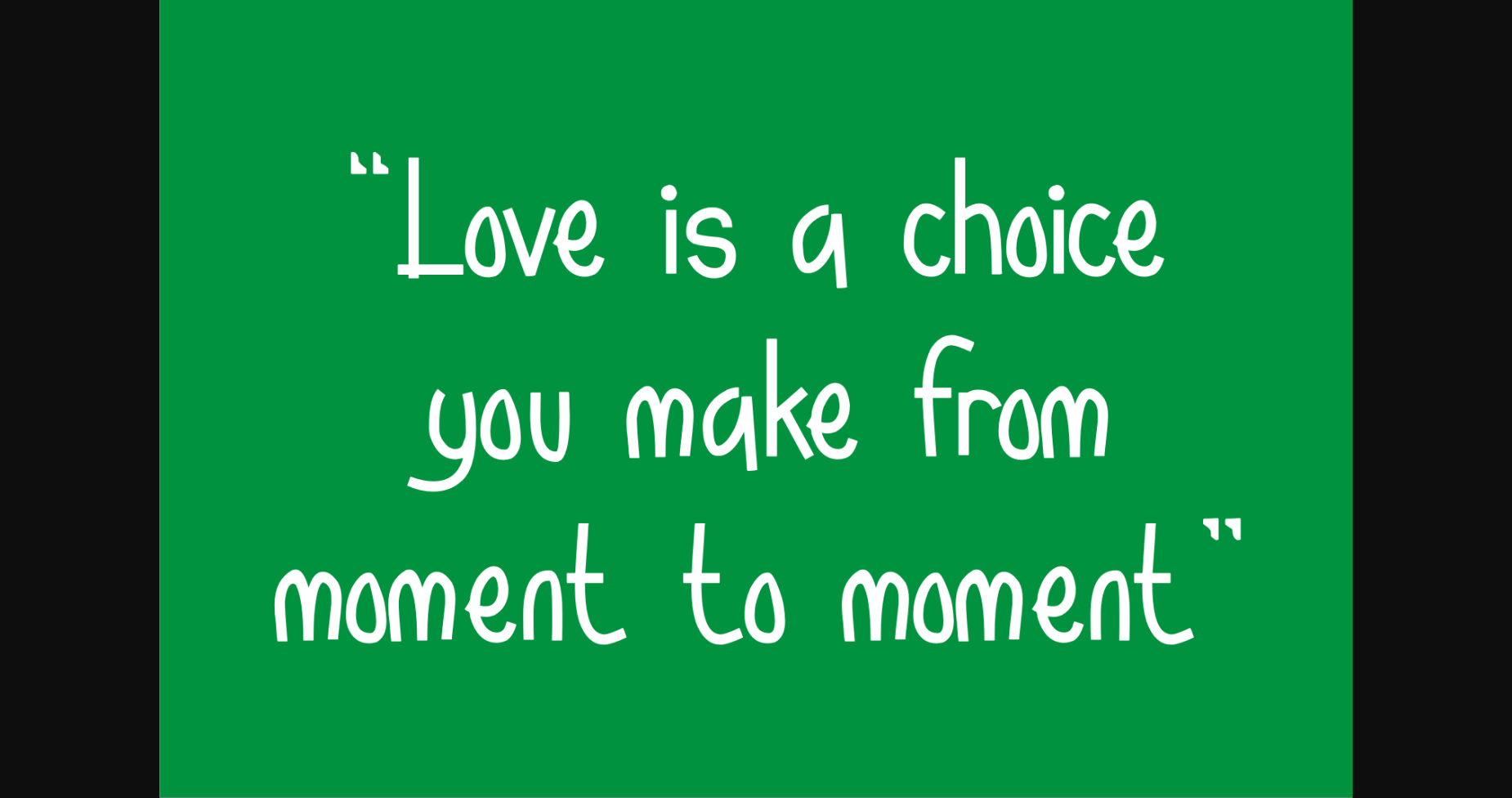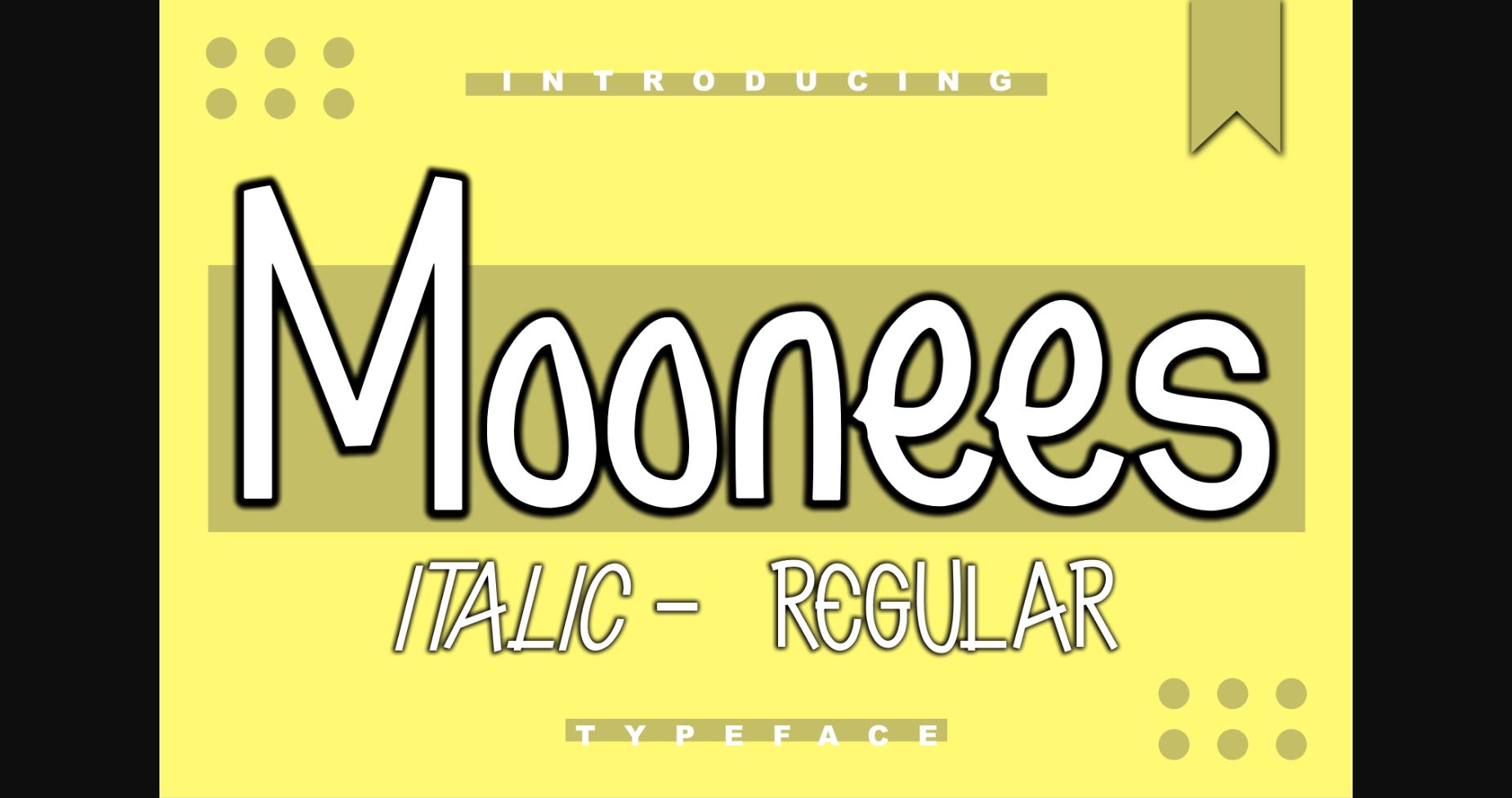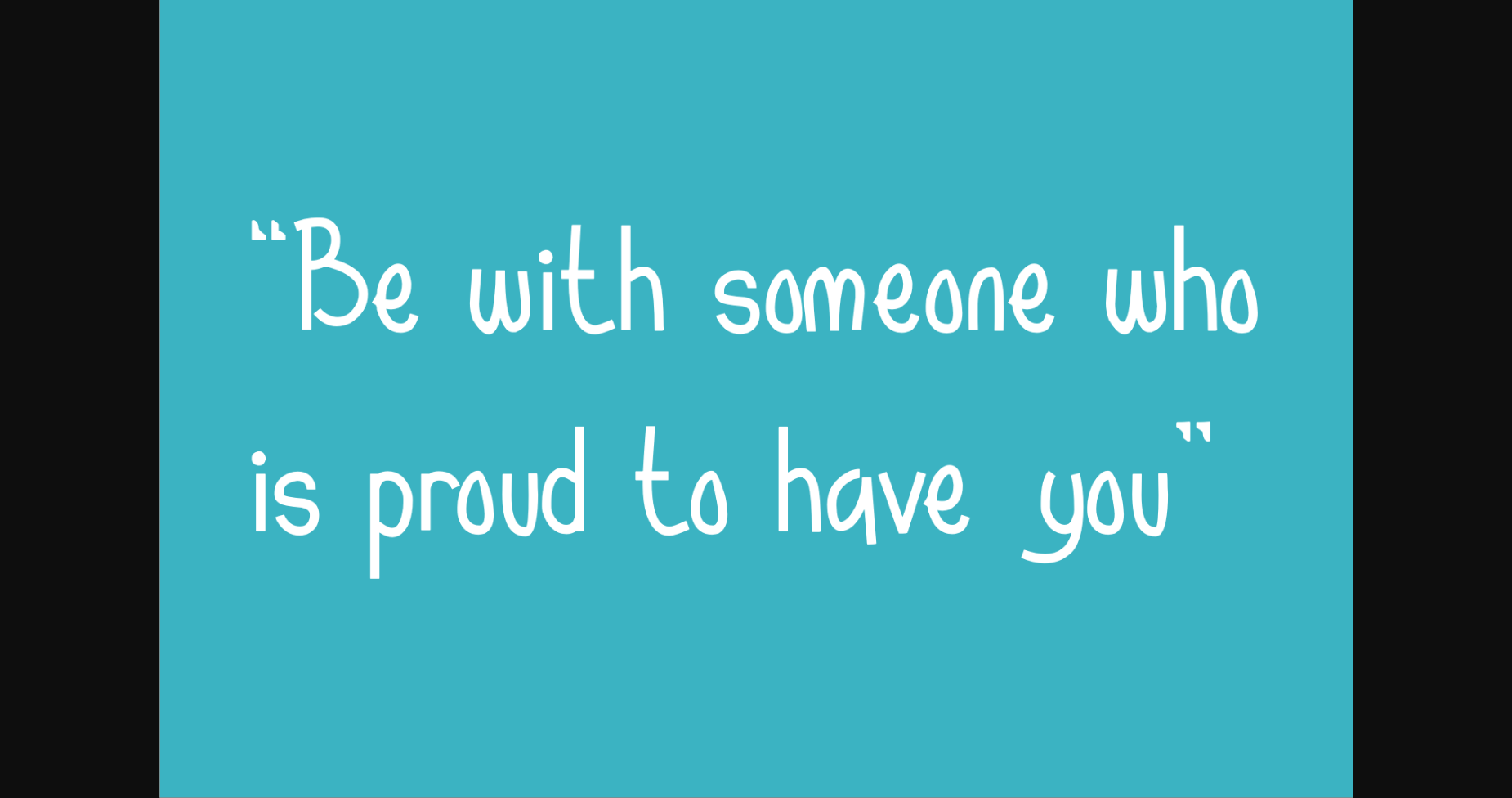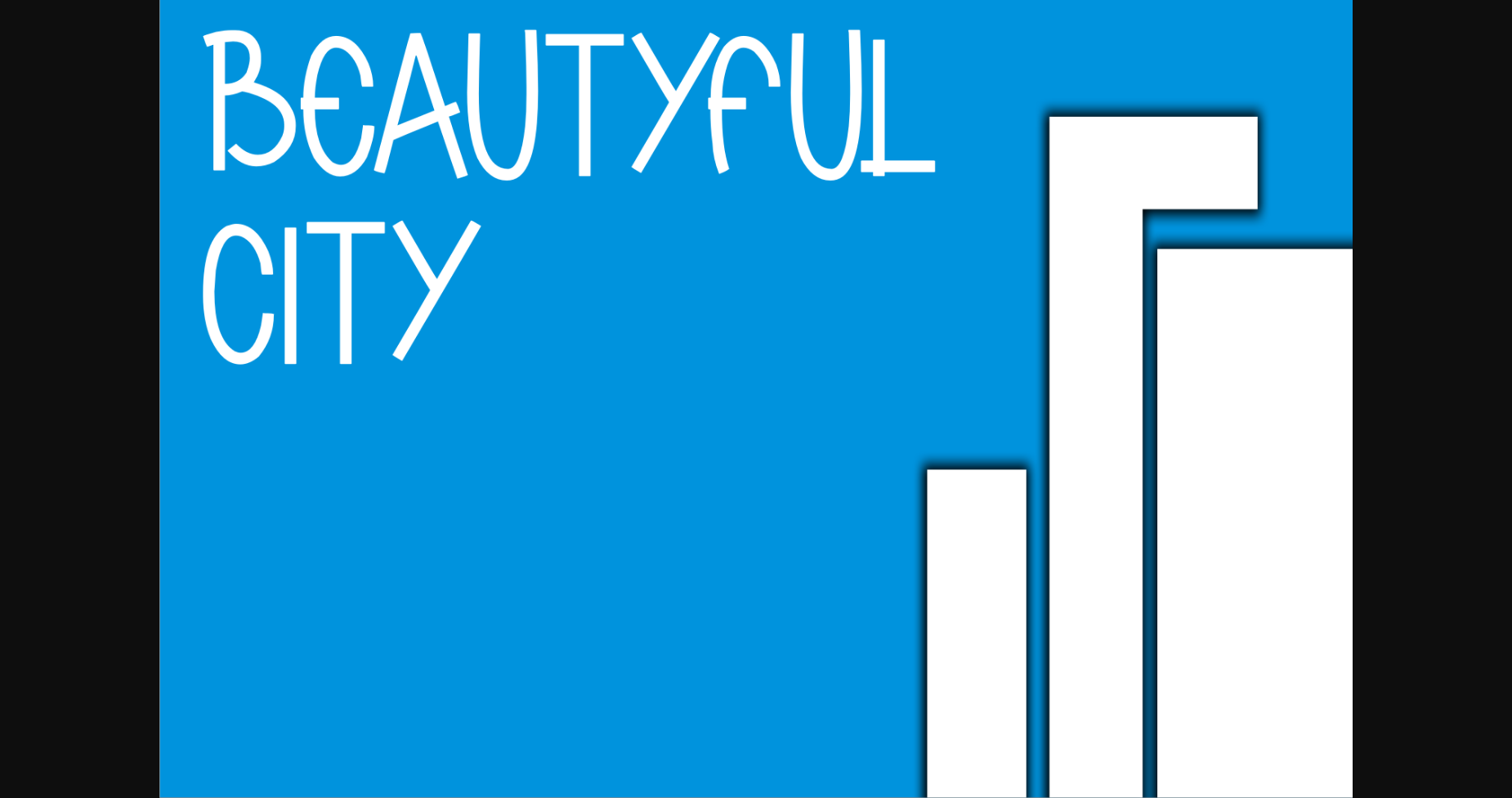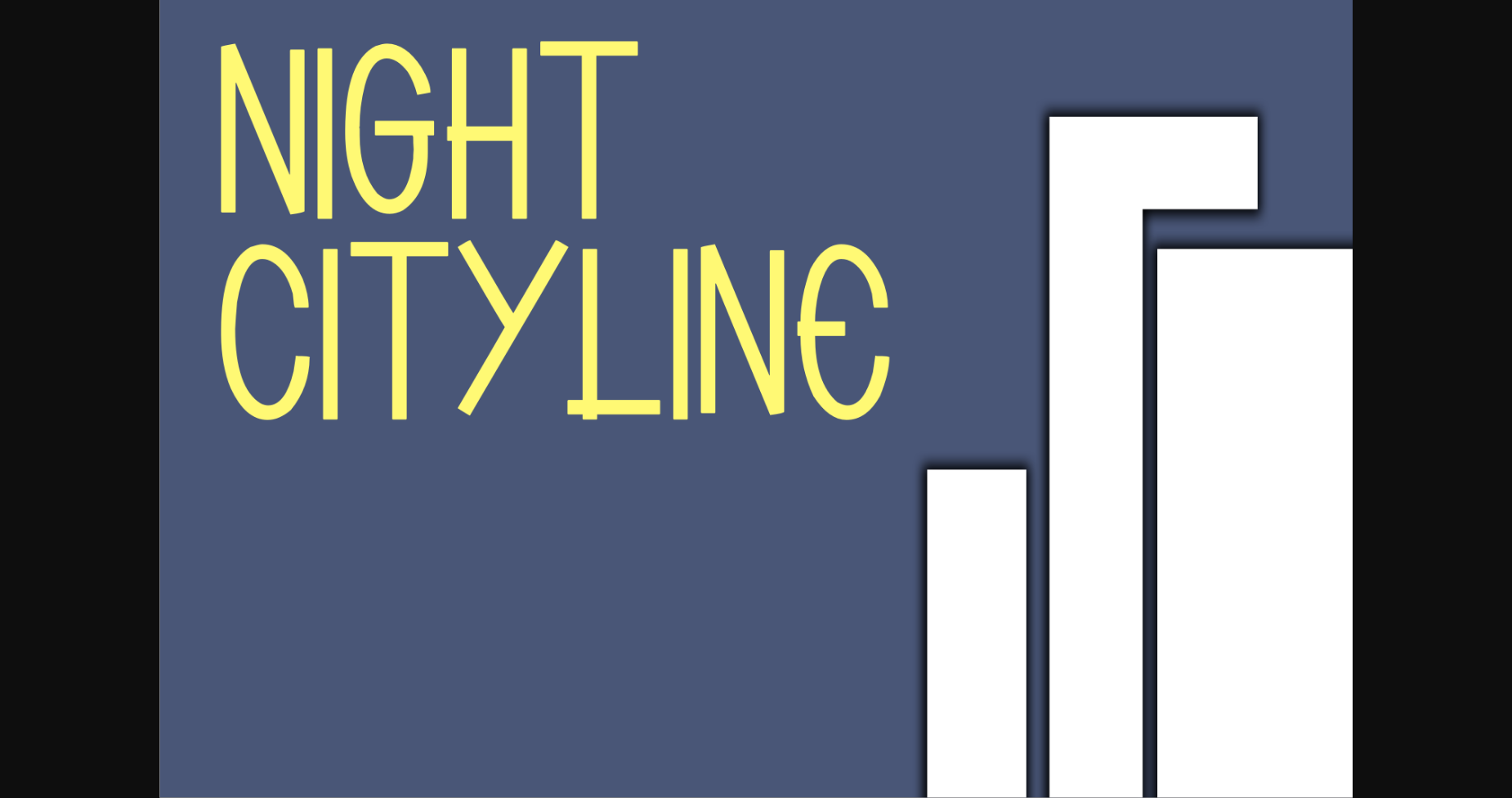
About Moonees Font
Moonees is a cool and trendy-looking sans serif font. This font is great for logos, badges, clothing, posters, and other projects that need to stand out from the crowd. Use this font for your designs and explore its endless possibilities.